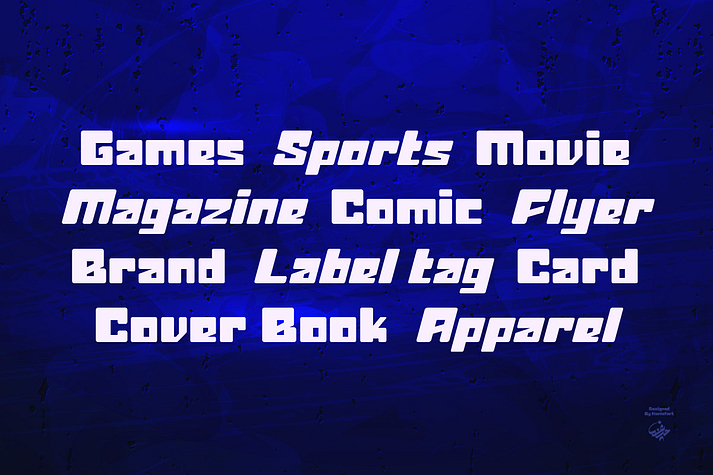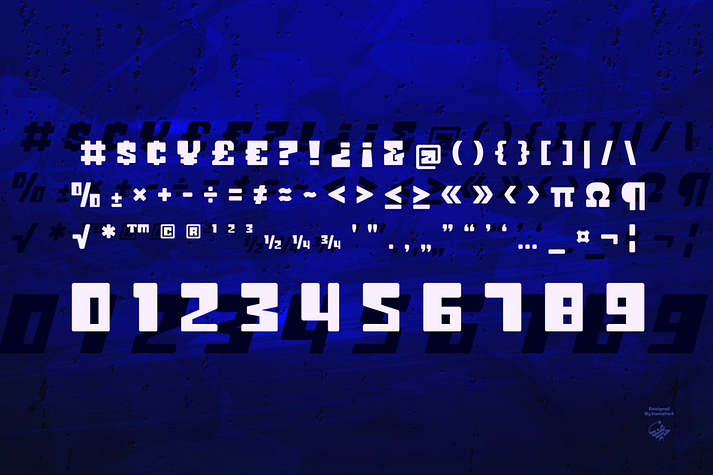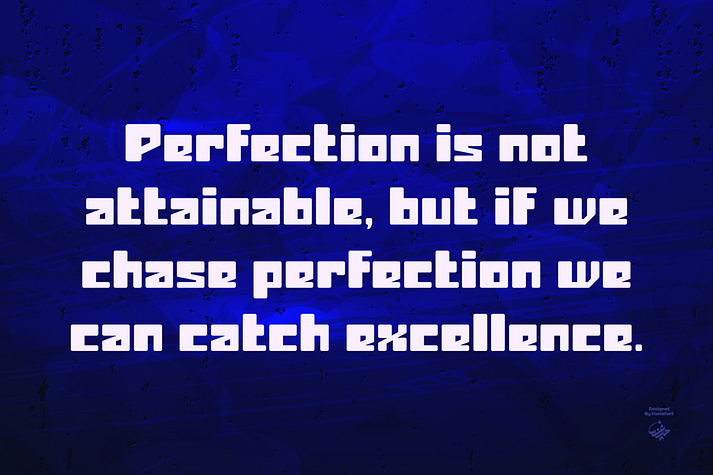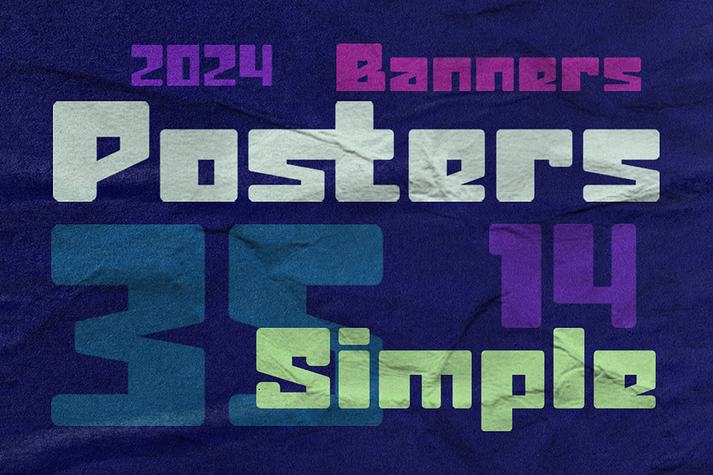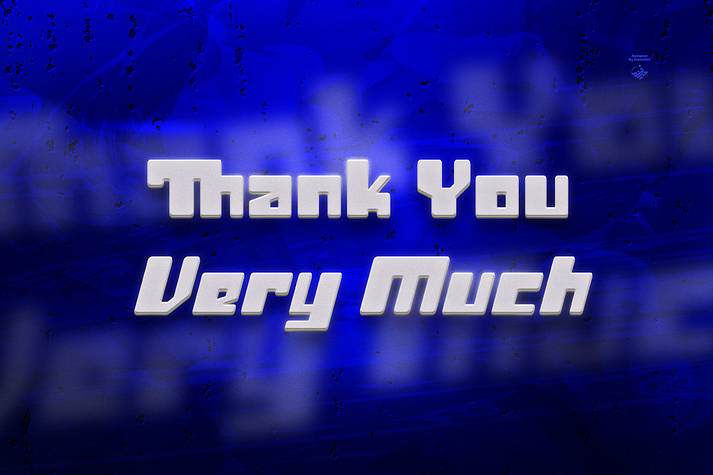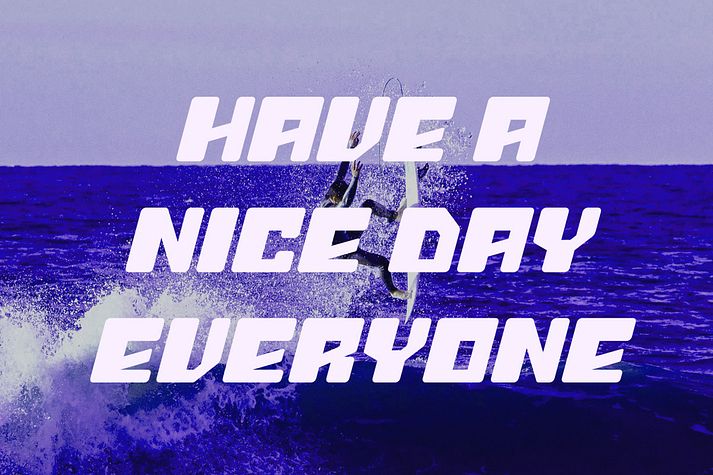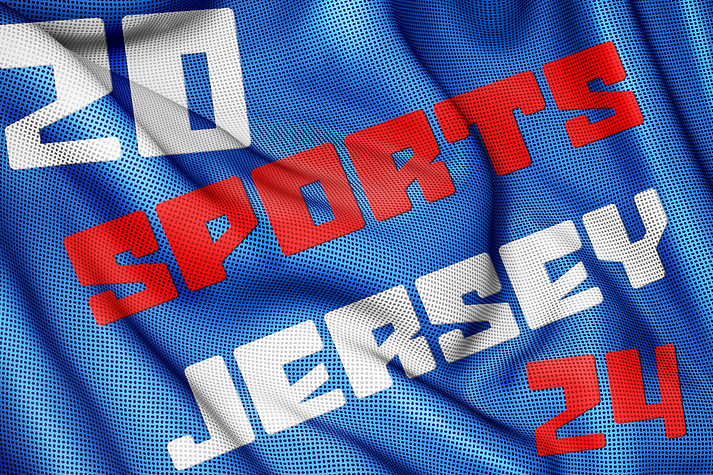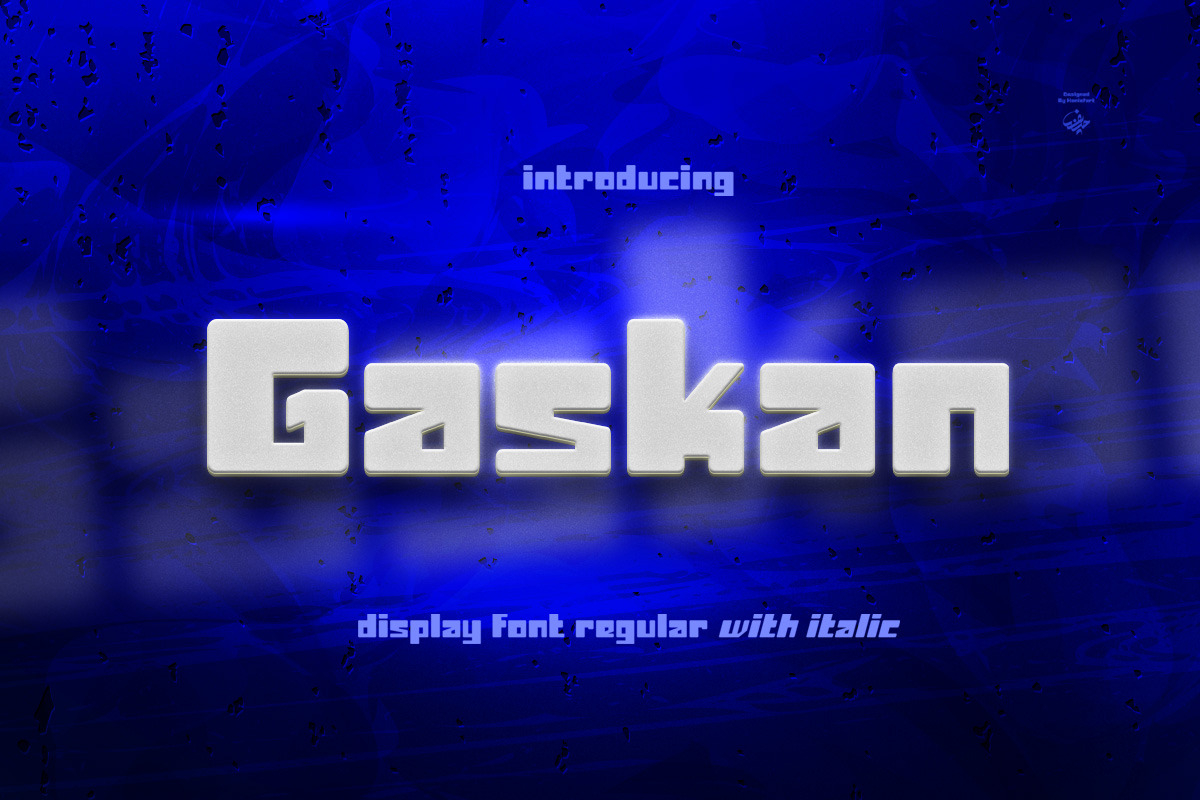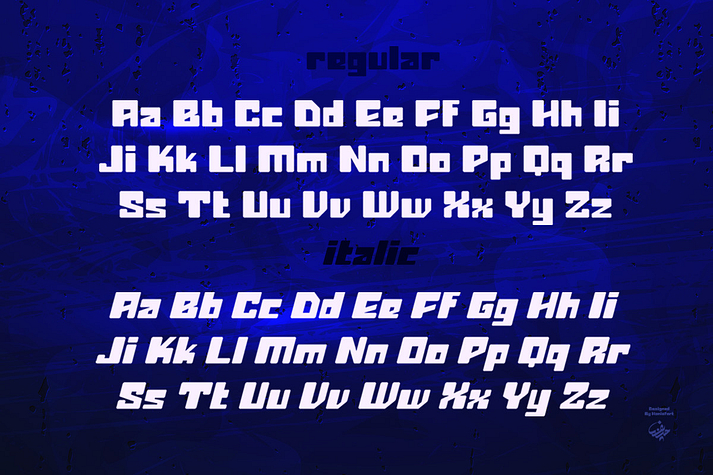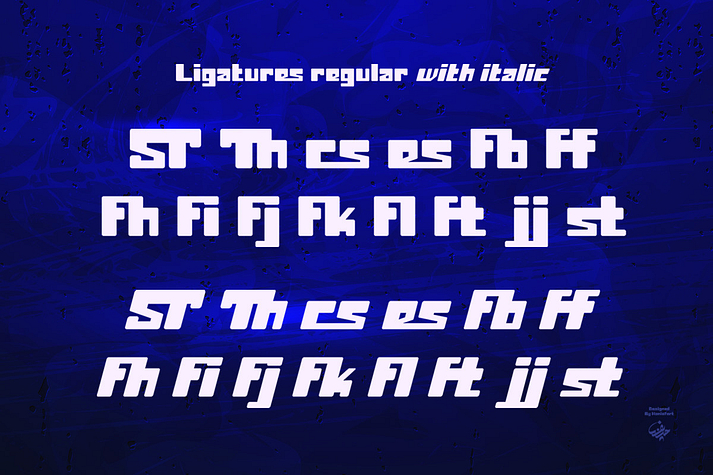
Gaskan
Gaskan is a retro font family. This typeface has two styles and was published by Haniefart.
.Gaskan is a futuristic bold display typeface, consisting of two styles regular and italic, available in uppercase, lowercase and ligature. This font is suitable for business brands, magazines, comics, t-shirts, banners, games, sports, movies, posters, flyers, book covers, and many others.